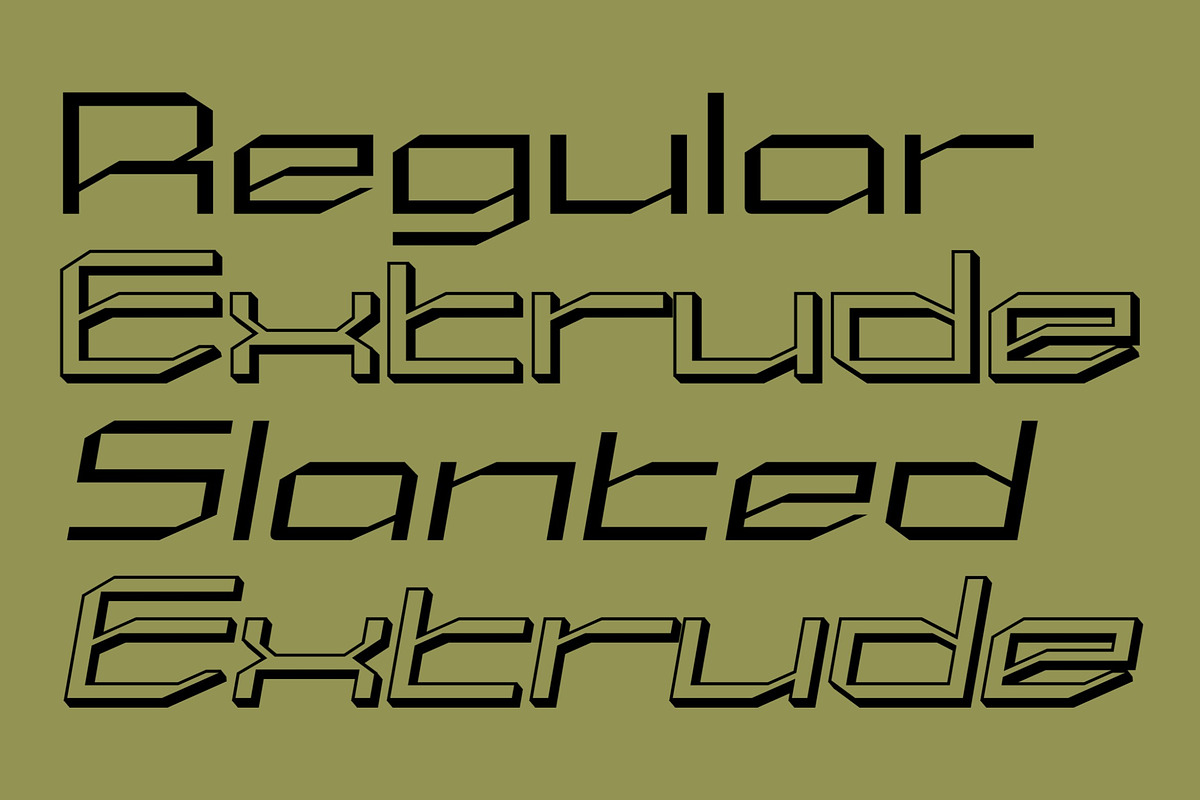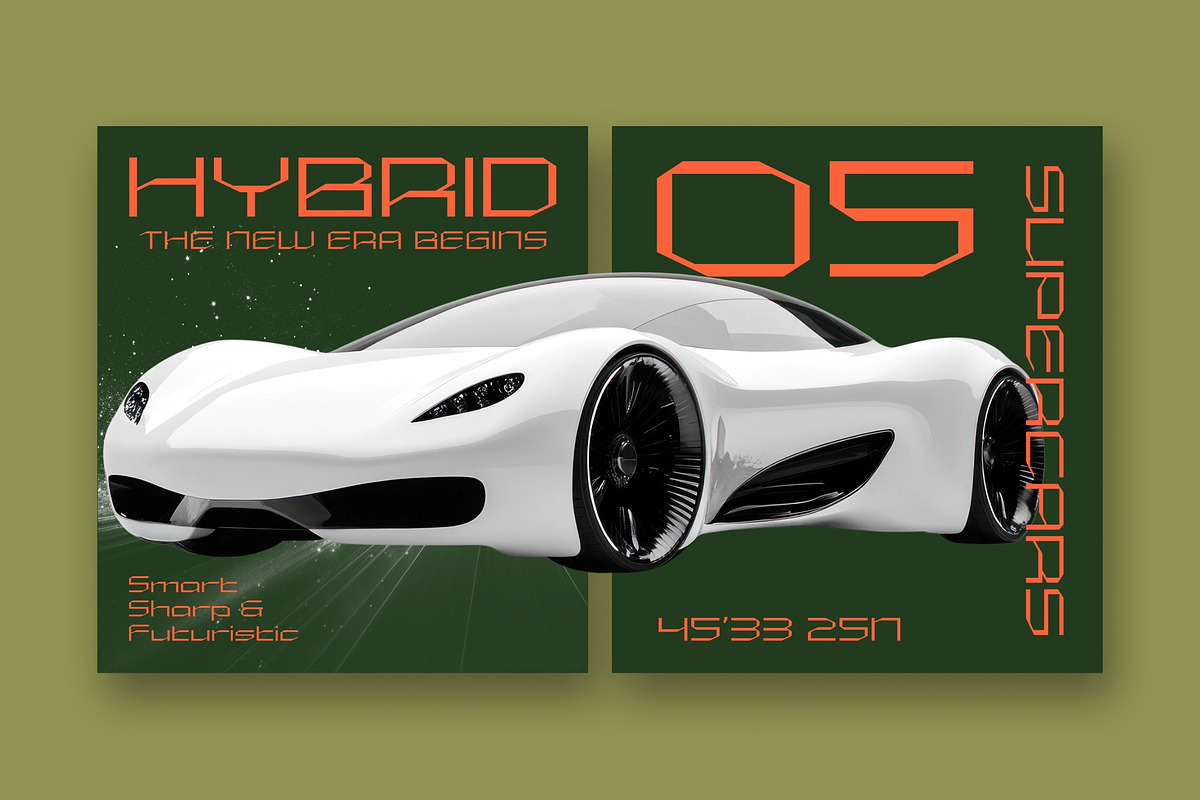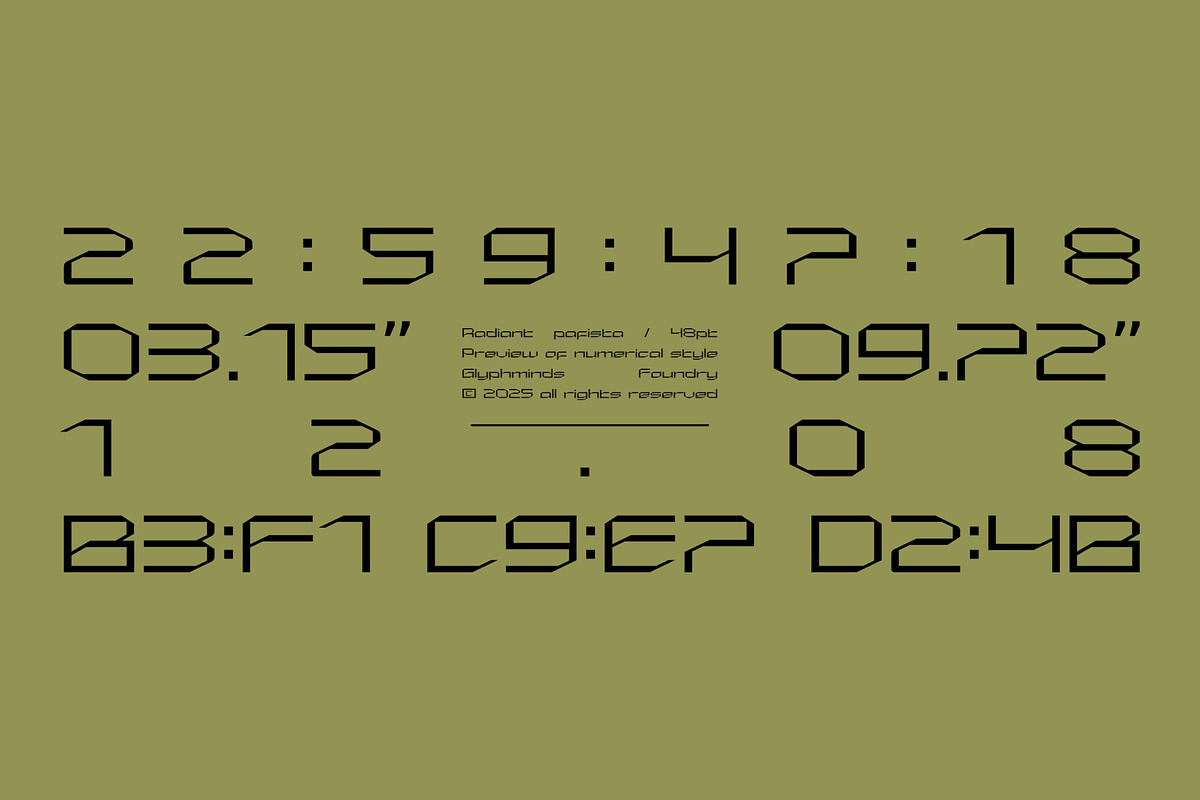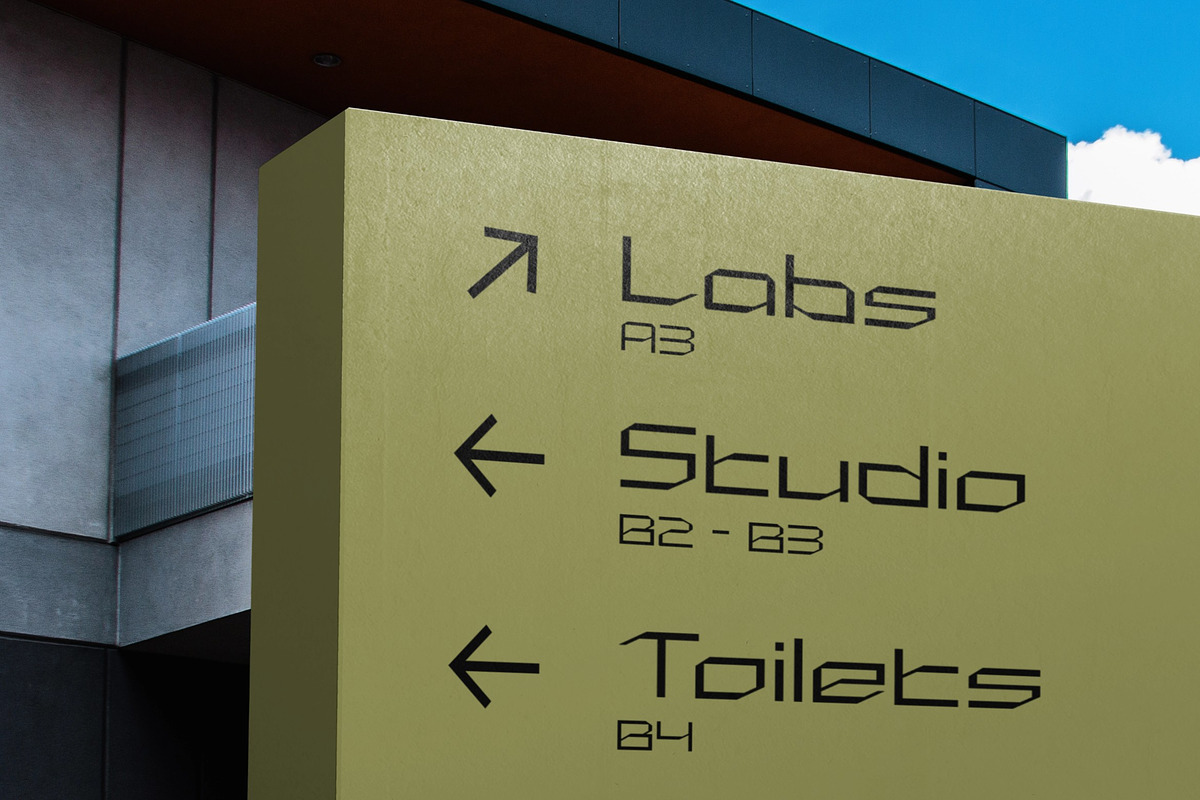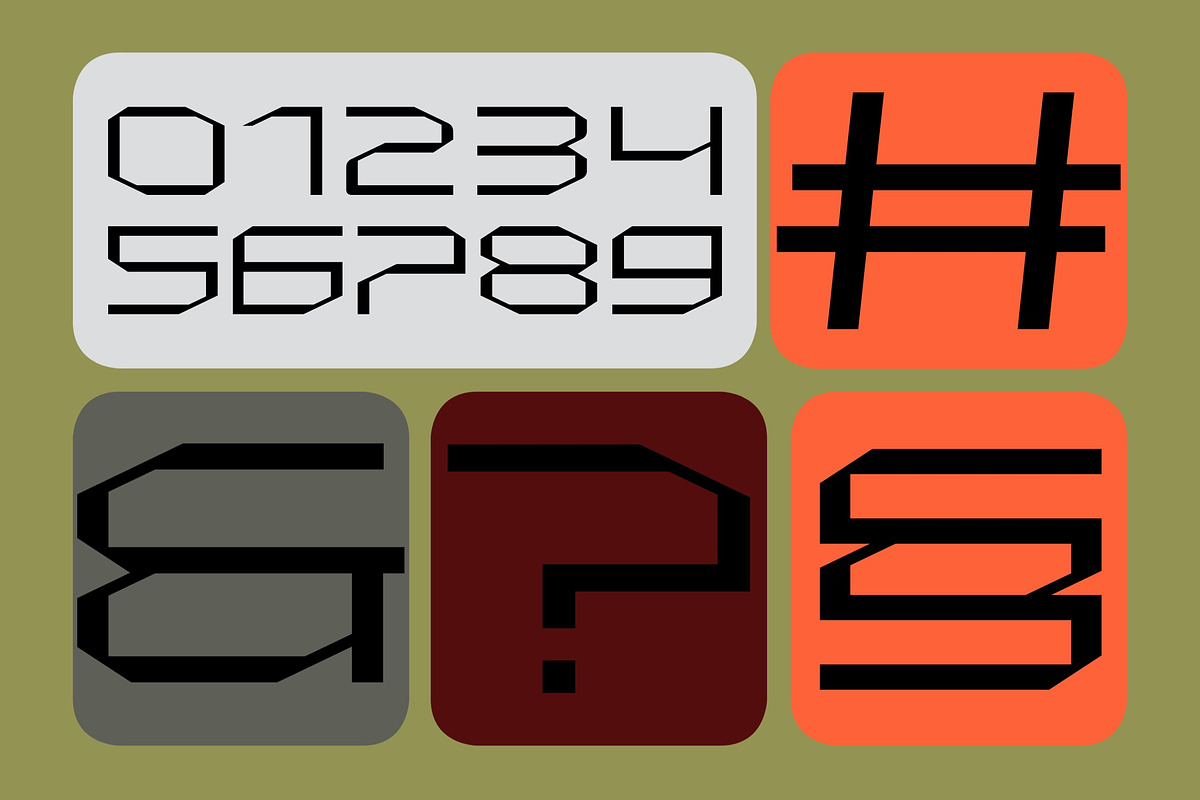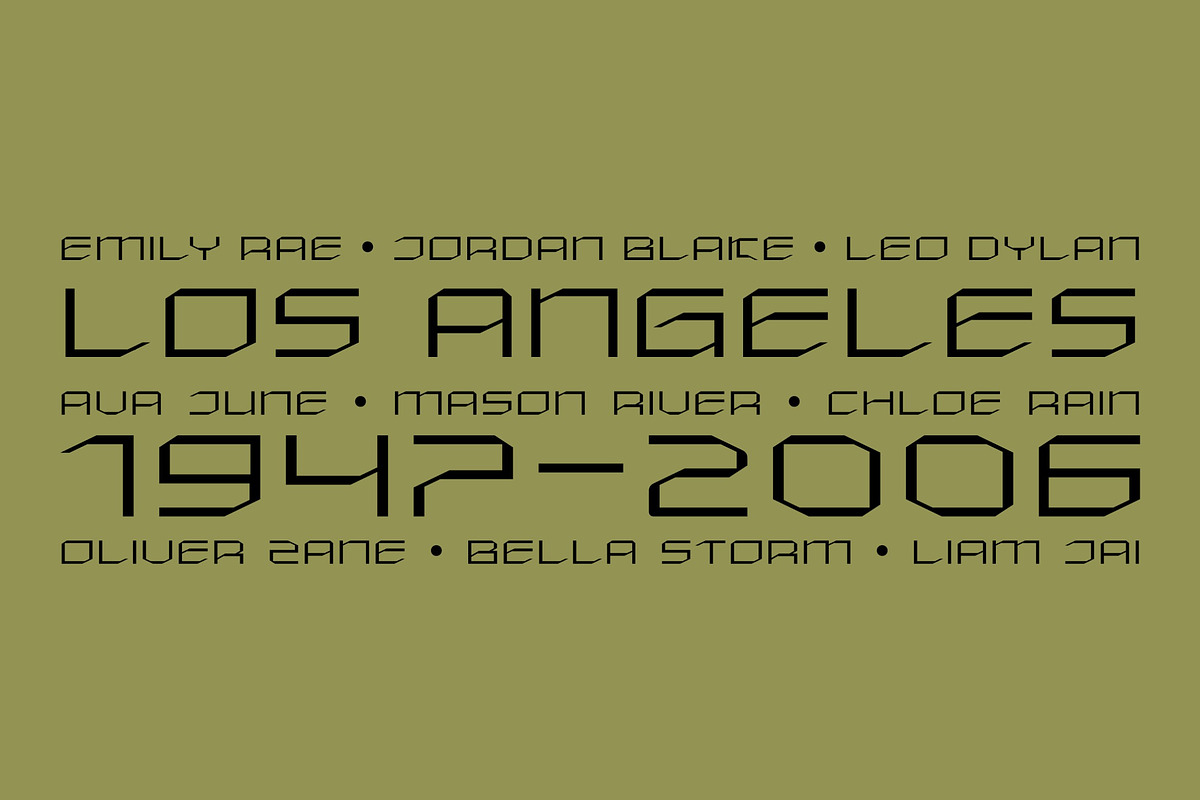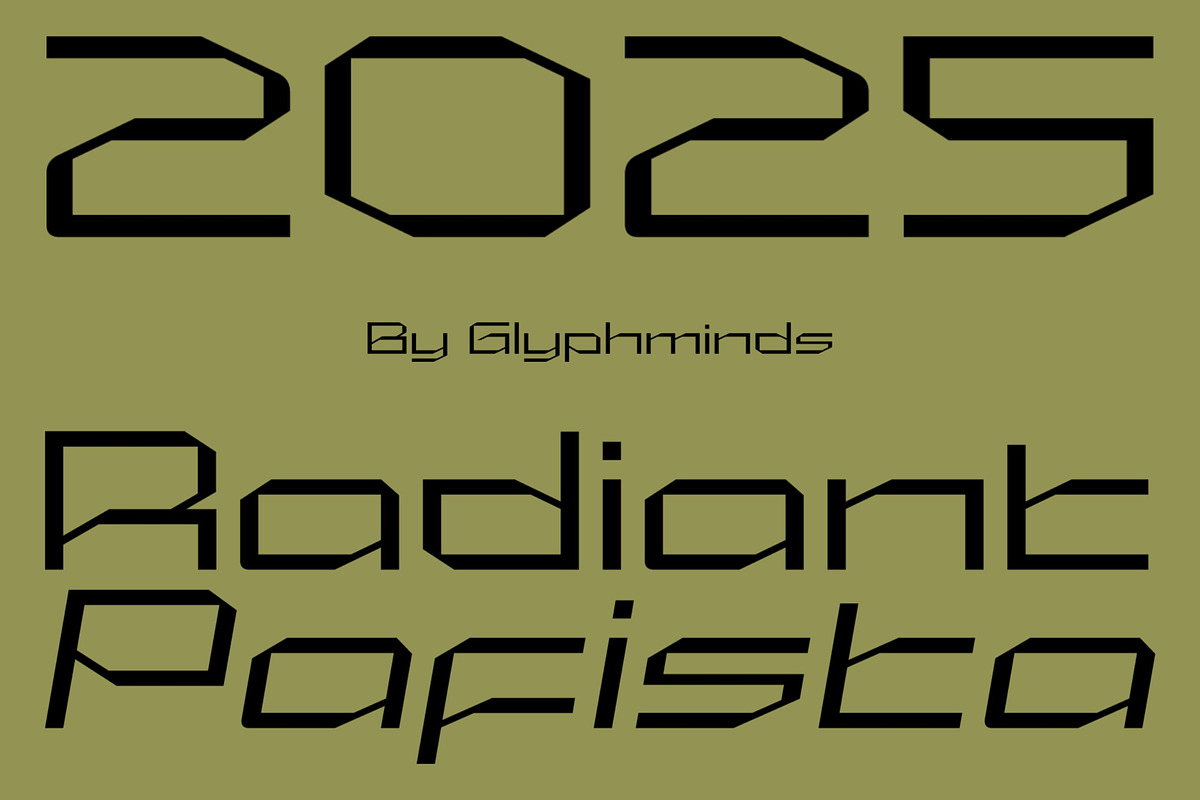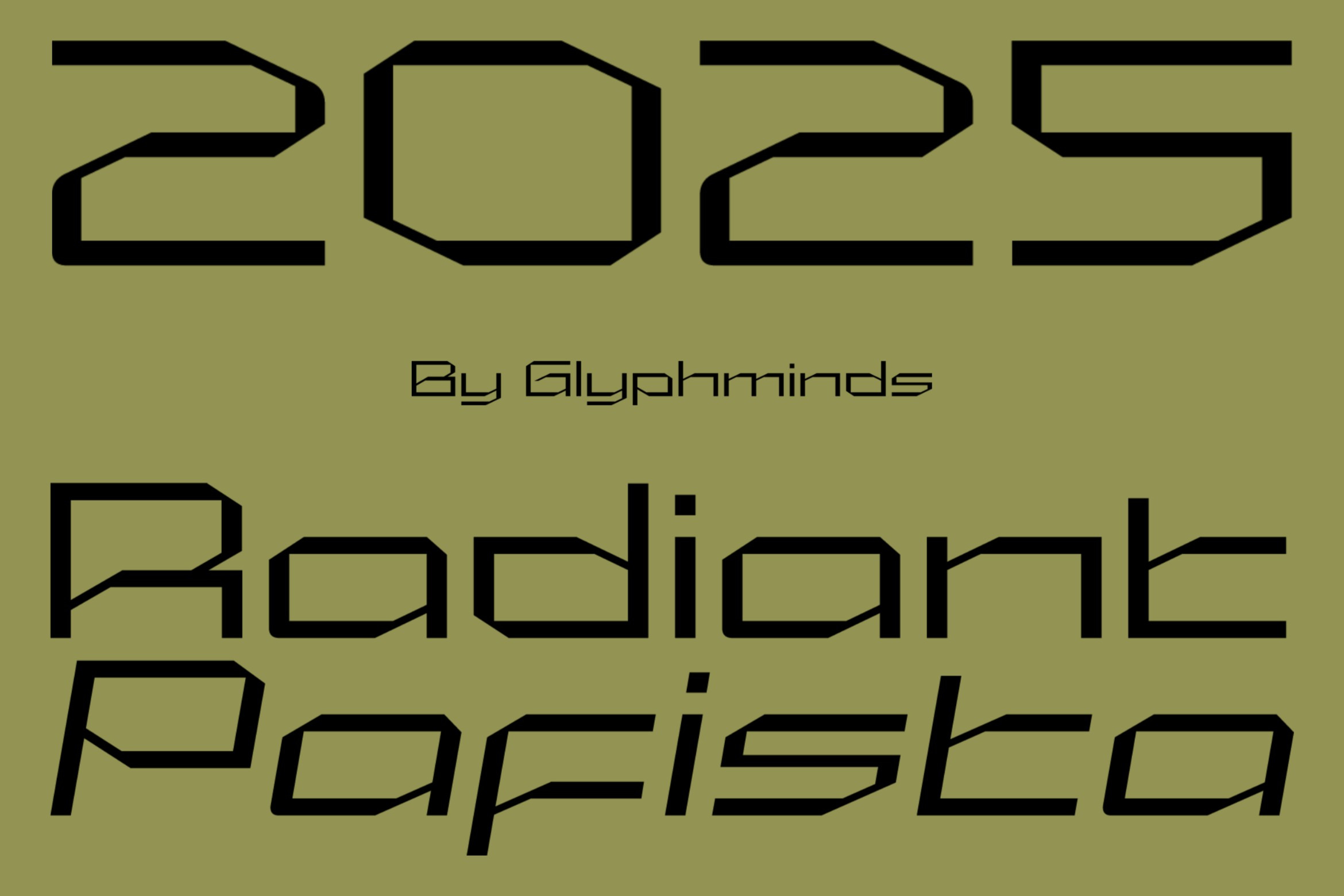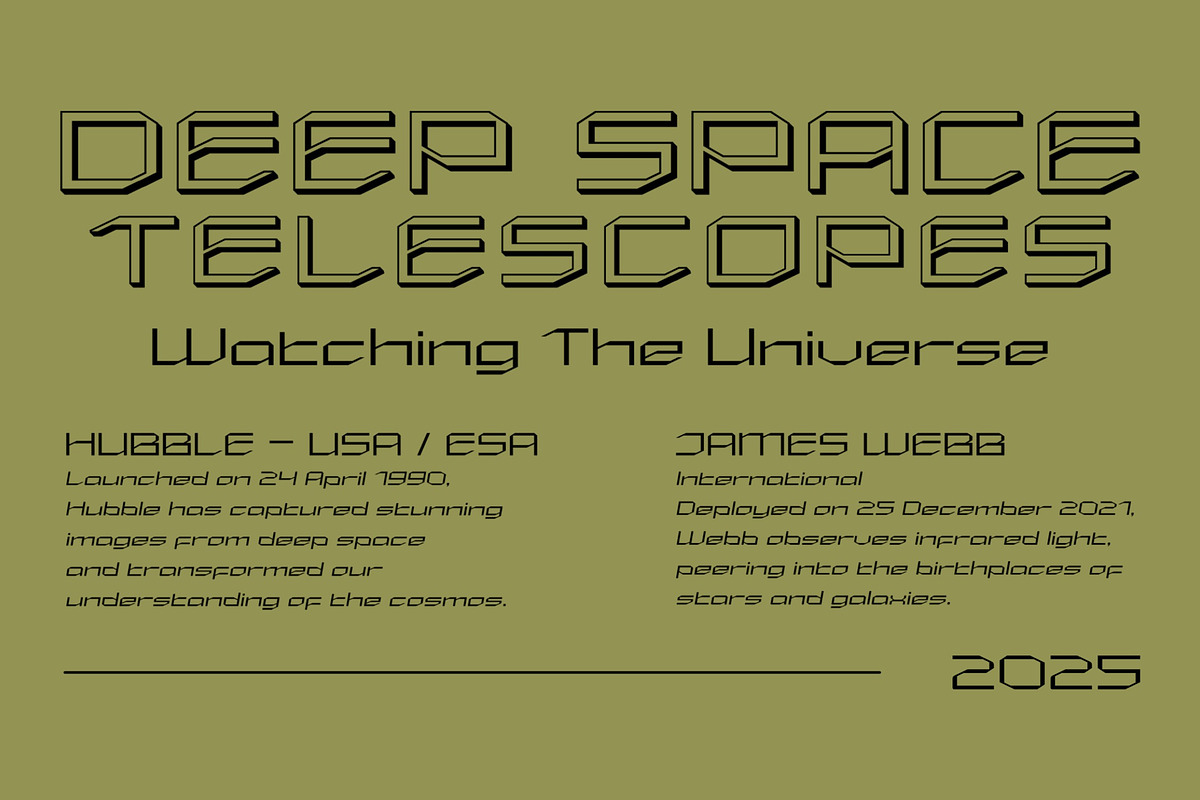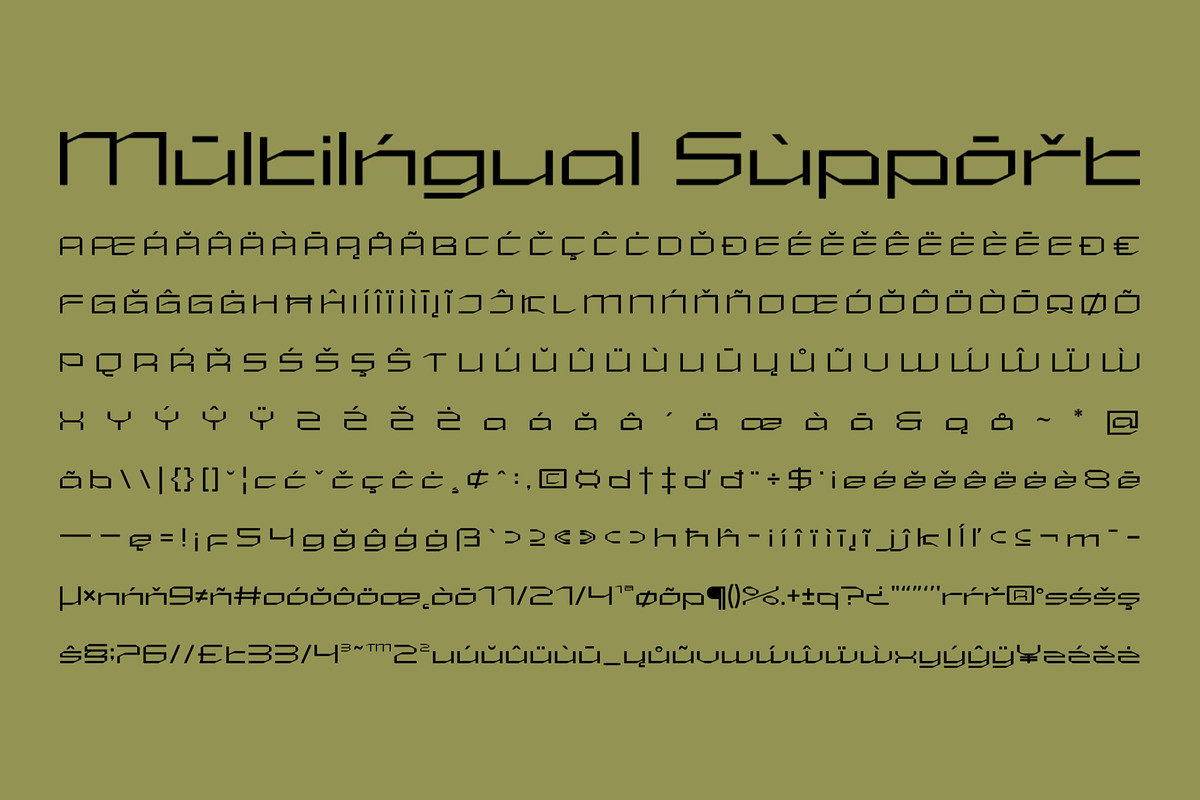
Futuristic Tech Font: Radiant Pafist
Step into the future with Radiant Pafista, a powerful and dynamic display font that will launch your designs into a new dimension. With its sharp angles, bold geometric construction, and unique stencil-like details, Radiant Pafista is engineered to make a statement.
This font captures the essence of modern technology, sci-fi worlds, and digital landscapes. The clean, wide letterforms provide a strong, assertive look, while the italicized version adds a sense of motion and speed.
Radiant Pafista is perfect for:
- Tech Branding & Logos: Create a memorable identity for a startup, app, or tech company.
- Gaming & Esports: Design striking titles, overlays, and promotional materials that stand out.
- Posters & Event Flyers: Command attention for movies, concerts, and tech events.
- Album Covers & Apparel: Give your merchandise a futuristic, edgy vibe.
- Headlines & Digital Displays: Ensure your message is seen and felt.